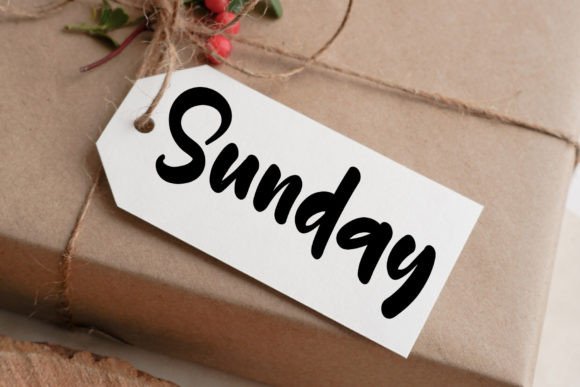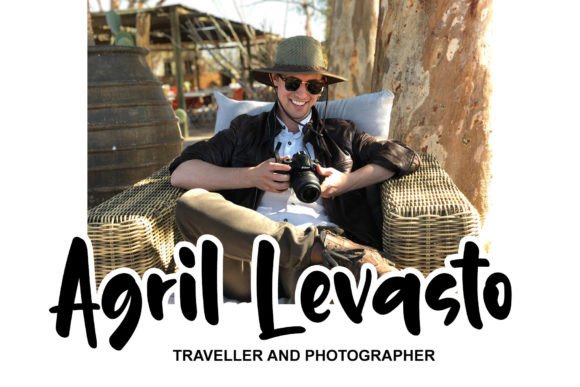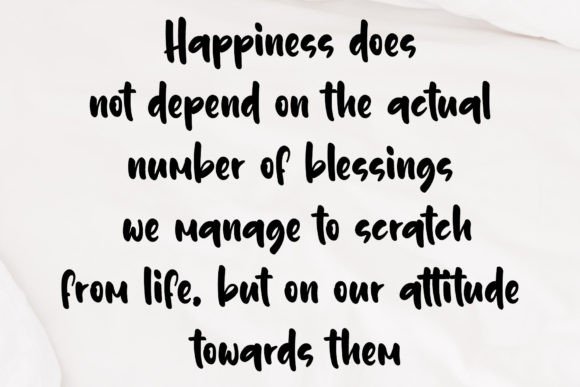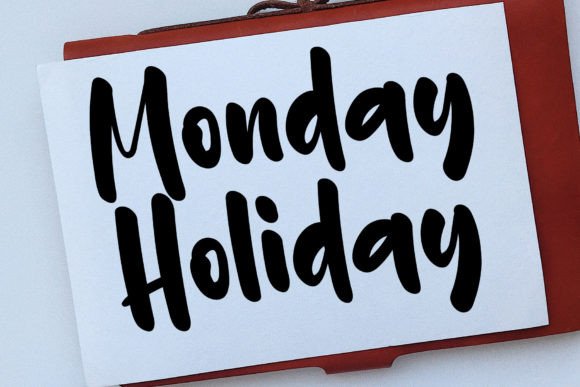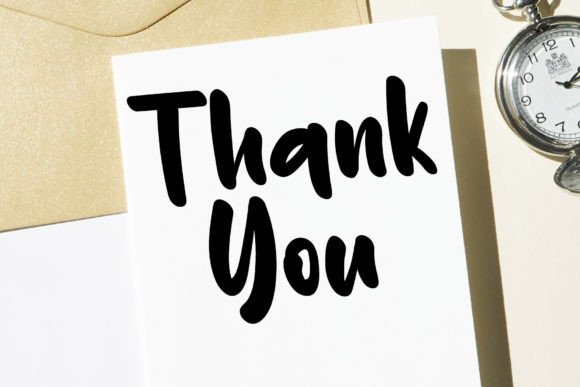
Introduction to Simply Clever Font
As designers, we’ve all been there – stuck in a creative rut, searching for that perfect font to bring our project to life. And then, like a breath of fresh air, we stumble upon a font that makes our hearts skip a beat. For me, that font was the Simply Clever Font, with its beautiful handwritten style and well-rounded letters that seemed to dance off the page.
With its incredibly versatile style, the Simply Clever Font is the perfect design resource for any creative project, from wedding invitations to social media graphics. And the best part? It’s available for free download, making it an accessible and high-quality addition to any designer’s toolkit. Whether you’re working on a design project with a transparent background or a bold, eye-catching graphic, the Simply Clever Font is sure to bring a touch of elegance and sophistication to your work.
Key Features of Simply Clever Font
- High-quality, vector-based design for crisp and clear text rendering, suitable for various print and digital applications.
- Features a transparent background, making it easy to integrate into creative projects and design resources.
- Designed with a unique, modern aesthetic, perfect for adding a touch of sophistication to any creative project.
- Resolution-independent, ensuring that the font remains clear and legible at various sizes and resolutions.
- Part of a larger collection of high-quality fonts, making it easy to find the perfect match for your design needs.
Honest Review: Simply Clever Font
As a designer, I’ve had my fair share of working with fonts, and I must say that the Simply Clever Font has been a pleasant surprise. It’s a high-quality design resource that offers a lot of creative possibilities.
- ✨ The font comes with a transparent background, making it easy to use in various design projects.
- ✨ The font’s modern and clean design makes it perfect for creative projects that require a touch of sophistication.
- ⚠️ The font family is relatively small, with only a few weights and styles available.
- ⚠️ Some users may find the font’s modern design too trendy, which might not be suitable for all design projects.
Overall, I’m impressed with the Simply Clever Font. It’s a great addition to any designer’s toolkit, especially for creative projects that require a high-quality, modern font. While it has some limitations, it’s definitely worth considering for designers looking for a reliable design resource.
Tips for Getting the Most Out of the Simply Clever Font
To get the most out of the Simply Clever Font, use it in creative projects that require a unique and stylish touch. Experiment with different font sizes, colors, and combinations to create visually appealing designs.
The Simply Clever Font is perfect for a variety of use cases, including:
- Infographics and charts